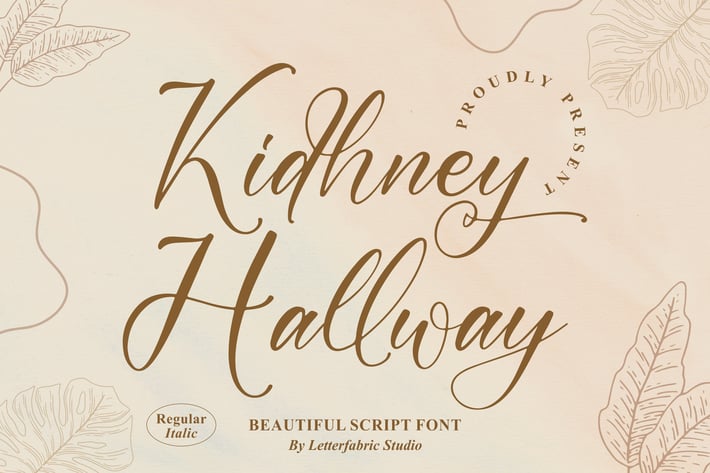
Kidhney Hallway Script Font
A graceful hand-lettered script with soft curves and elegant swing, Kidhney Hallway brings a warm, romantic touch to your designs. Its smooth rhythm and classic calligraphy feel make headlines and short phrases look naturally stylish—perfect for wedding stationery, brand marks, quote posters, packaging, and polished social posts. The set includes Regular & Italic styles so you can mix contrast or add emphasis without leaving the family.
+ Uppercase & lowercase letters
+ Numerals & punctuation
+ Stylistic alternates & swashes
+ Natural ligatures
+ Multilingual support
+ Optimized kerning & smooth curves
+ Two styles: Regular and Italic